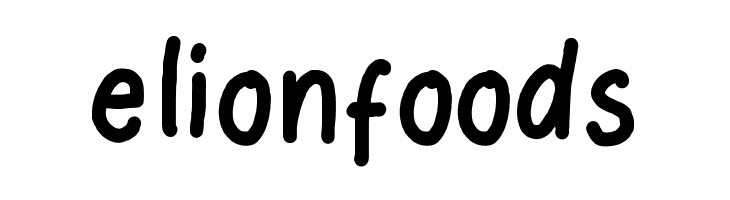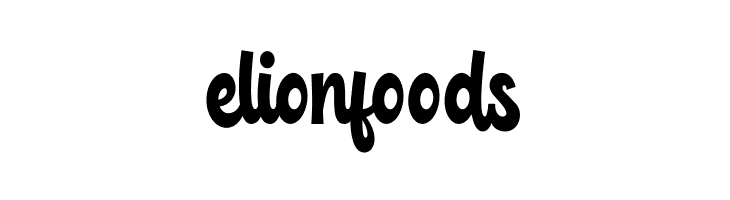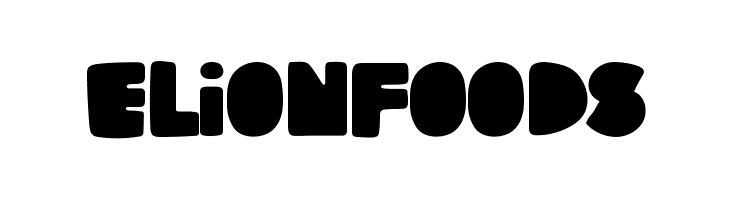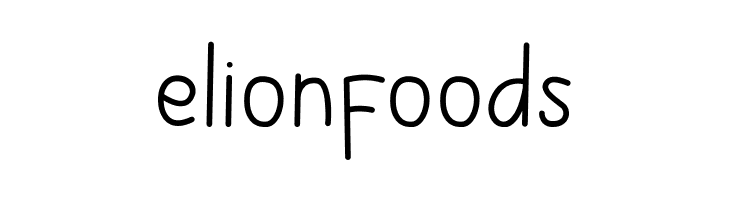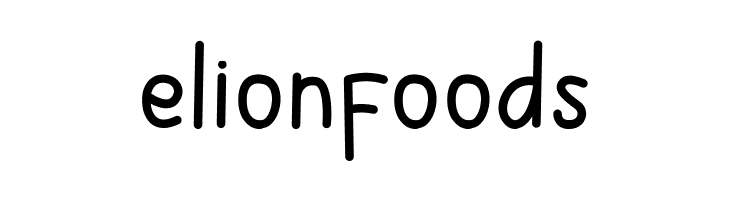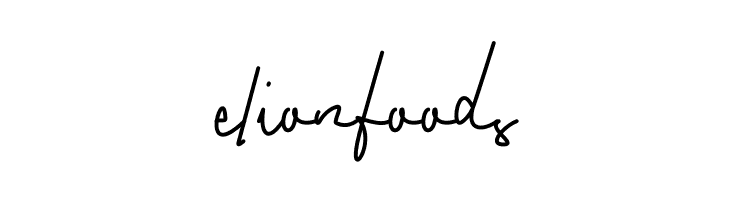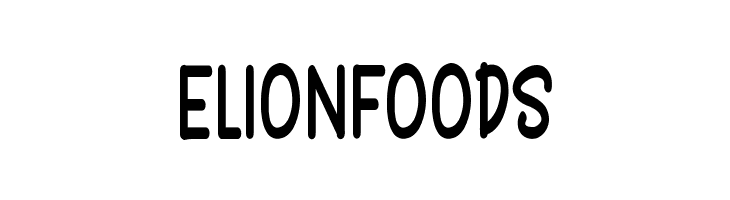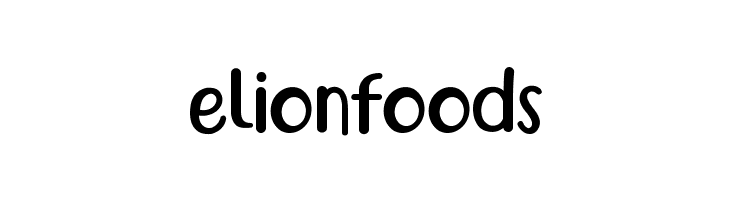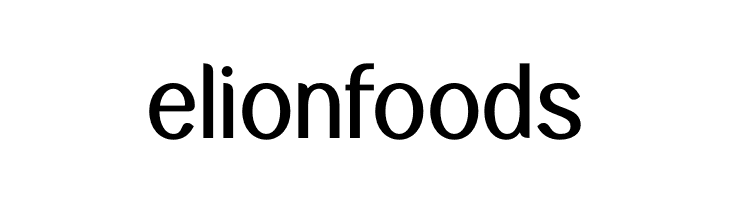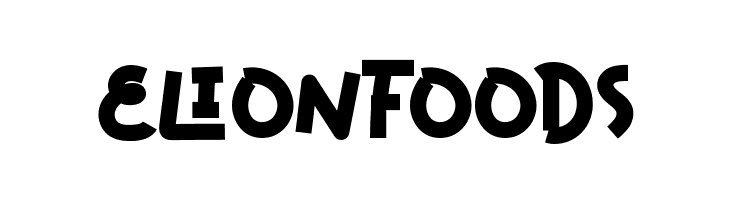
A bold, expressive handwritten font with fluid, cursive letterforms.
A playful, bold font with rounded, irregular letterforms.
Decorative script font with a playful style.
Expressive handwritten script with tall, narrow, and fluid letterforms.
A bold, modern font with elongated, narrow characters and a vertical emphasis.
Bold, playful font with irregular shapes.
A bold, playful, and hand-drawn style font with rounded characters.
A playful, handwritten font with tall, narrow letters and rounded edges.
Bold, playful font with a cut-paper, handcrafted appearance.
A playful, handcrafted font with a whimsical, paper-cut style.
A playful, handwritten-style font with rounded, consistent strokes.
A playful, bold font with rounded, hand-drawn letterforms.
A playful, hand-drawn font with bold, rounded characters and diagonal hatching.
A tall, narrow, and modern font with consistent stroke width and close character spacing.
A bold, angular font with a modern and geometric style.
A sleek, high-contrast serif font with elegant, elongated letterforms.
A thin, italicized font with high contrast and elegant style.
A graceful, flowing script font with elegant, interconnected letters.
A playful handwritten font with a quirky, casual style.
A whimsical, elegant cursive font with intricate loops and flourishes.
A playful, bold font with rounded, blob-like characters.
A textured, playful font with a bubbly, organic design.
An elegant script font with flowing, interconnected letters and artistic flair.
A bold, tall, and narrow font with high contrast, perfect for impactful headlines.
A bold, decorative font with letters in flag-like banners, ideal for festive occasions.
A playful, bunny-themed decorative font with bold, rounded characters.
A playful font with bunny ear embellishments, perfect for festive and cheerful designs.
A playful font with each character featuring a cute bunny face, perfect for fun and creative projects.
A playful, carrot-themed decorative font with bold, rounded characters.
A playful, flower-adorned font with bold, rounded characters.
A playful, ornamented font with intricate patterns and festive motifs.